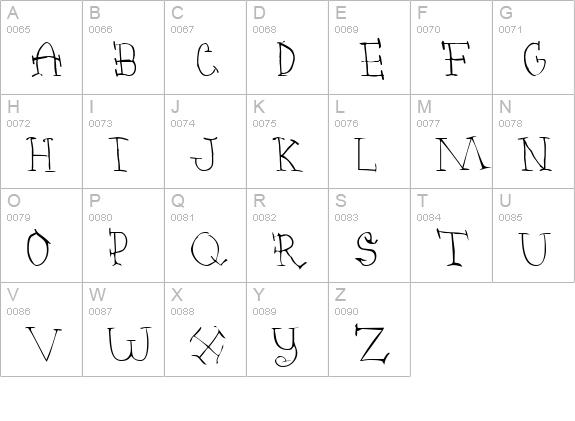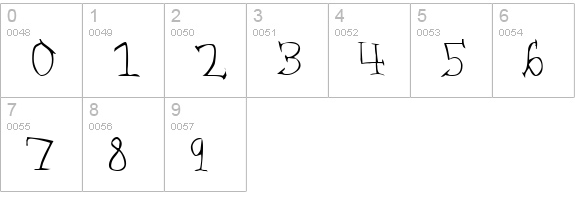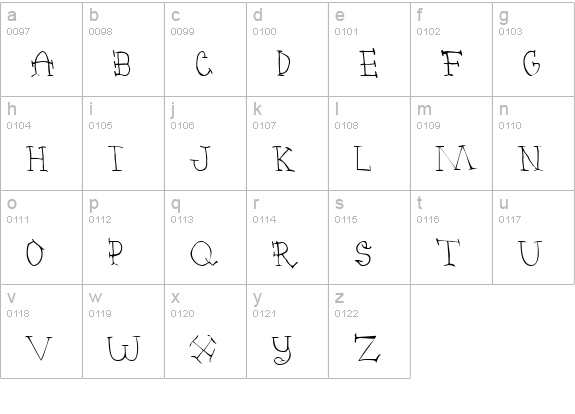
Poornate Font Details
Poornate font is an exquisite and ornate typeface that exudes elegance and sophistication. With intricate detailing and graceful curves, this font is perfect for adding a touch of luxury to your designs. Poornate is versatile and can be used for a wide range of projects, from invitations to branding to editorial design. The best part? Poornate font is available for free download at FontsMarket.com. You can easily enhance your projects with this beautiful font without any cost. Don't miss out on the opportunity to add a touch of opulence to your designs with Poornate font, now freely accessible for your creative endeavors.